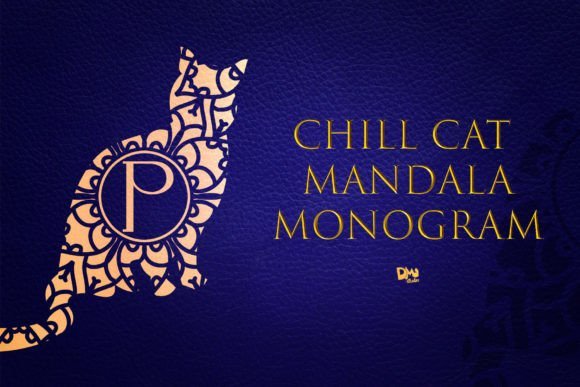
Get Ready to Purr-fect Your Designs
As a designer, have you ever been in the zone, brainstorming ideas for a project that just needs that special something? For cat lovers, that special something is often a design that showcases their feline friends. You spend hours pouring your heart into a project, and then, it hits you – the perfect font to bring it all together.
Enter the Chill Cat Mandala Monogram Font, a decorative typeface that’s purr-fectly designed to add a touch of whimsy to any cat-themed project. Whether you’re creating invitations, social media graphics, or a custom cat-themed journal, this font is sure to bring a smile to the faces of cat lovers everywhere. As a designer, you’ll appreciate the value of this font in adding a unique and eye-catching element to your work.
With the Chill Cat Mandala Monogram Font, you’ll be able to take your designs to the next level and create truly memorable pieces that will leave a lasting impression on your audience.
Key Features of Chill Cat Mandala Monogram Font
• Font Style: A unique, hand-drawn monogram font with a relaxing, cat-themed design.
• Characters: Includes a set of 26 uppercase and 26 lowercase letters, as well as 10 punctuation marks and numbers.
• Unique Characteristics: Each letter is designed with intricate, swirling patterns and cat-inspired elements, making it a perfect choice for cat lovers and those seeking a unique, whimsical font.
Chill Cat Mandala Monogram Font Review
I recently had the chance to play around with the “Chill Cat Mandala Monogram Font” and here’s my honest take.
• The font’s unique blend of bohemian and mystical vibes is perfect for creating eye-catching graphics and designs.
• The mandala-inspired monogram is a beautiful addition to any design, adding an extra layer of meaning and symbolism.
• The font’s flexibility allows for various customization options, making it suitable for a wide range of projects.
• High-quality previews and demo files make it easy to experiment with the font and see how it looks in different contexts.
• The font’s complexity may make it difficult to pair with other fonts, potentially limiting design options.
• The extensive customization options can be overwhelming for beginners, making it harder to get started.
• The font’s uniqueness may not be suitable for all projects or audiences, potentially limiting its appeal.
The “Chill Cat Mandala Monogram Font” is a unique and visually striking addition to any designer’s toolkit. While it may have some limitations, its flexibility and customization options make it a great choice for creatives looking to add a touch of mysticism and bohemian flair to their designs.
The Chill Cat Mandala Monogram Font is perfect for:
• Creative business branding
• Wedding invitations and decor
• Social media graphics and ads
Remember to experiment with different font sizes, colors, and arrangements to get the most out of the Chill Cat Mandala Monogram Font.